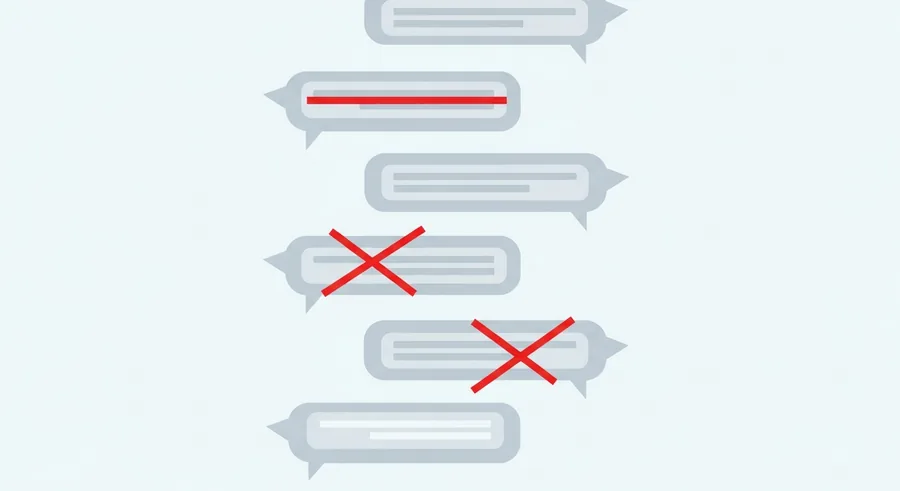
How Strikethrough Text Works
A strikethrough is a horizontal line through the middle of text, like ~~this~~, used to show something crossed out, corrected, or humorously contradicted. It's a popular effect in social media captions, Discord messages, and creative bios.
There are two ways to get strikethrough text: native platform formatting (where the platform draws the line for you), and Unicode combining characters (which work everywhere else).
Method 1: Platform-Native Strikethrough
Some platforms have their own strikethrough formatting built in:
Discord
Discord uses markdown formatting. Wrap your text with double tildes: ~~your text~~ and it will render as struck-through text. This is the cleanest method for Discord since it renders perfectly for everyone in the channel.
WhatsApp also supports strikethrough via the tilde shortcut. Type ~your text~ (single tilde on each side) and it sends as strikethrough text.
Telegram
Telegram's markdown formatter supports strikethrough in the same way as Discord: ~~text~~. On mobile, you can also highlight text and use the formatting menu.
Slack
In Slack, strikethrough is also available through ~text~ or via the text formatting menu.
Method 2: Unicode Combining Strikethrough (Works Everywhere)
The Unicode combining strikethrough character (U+0336) is a special "diacritic" that draws a line through the character before it. When applied to every letter in a word, the result looks like: s̶t̶r̶i̶k̶e̶t̶h̶r̶o̶u̶g̶h̶
This method works anywhere that supports Unicode — including Instagram, TikTok, Twitter/X, Facebook, and any platform that doesn't have a native strikethrough option.
Popular Uses of Strikethrough Text
Captions showing a change of plan or joke
A very popular Instagram caption format: "Things I'm definitely not doing this weekend: s̶l̶e̶e̶p̶i̶n̶g̶ ̶i̶n̶" — the strikethrough creates a visual joke or irony that plays well on social media.
Instagram bios with sarcasm
Some creators use strikethrough in their bio to cross out something and replace it with the truth: "P̶r̶o̶f̶e̶s̶s̶i̶o̶n̶a̶l̶ chaos coordinator." The crossed-out word creates personality and humor.
Price listings and "was/now" content
Showing a crossed-out original price next to a sale price is a common e-commerce and creator monetization pattern. Unicode strikethrough makes this possible even in plain text fields.
Readability Warning
The Unicode combining strikethrough can be harder to read than the native platform versions, especially on small mobile screens. The line may look slightly uneven compared to platform-rendered strikethrough. For Discord and WhatsApp where native strikethrough is available, use the native method — it will look cleaner. Use the Unicode method for platforms like Instagram and TikTok where no native option exists.
Does Strikethrough Work in Instagram Captions?
Instagram does not have a native strikethrough option, but Unicode combining strikethrough text (generated via Fontb) does paste and display in Instagram captions, bios, and comments. The rendering is slightly different from platform to platform but is generally recognizable as strikethrough text.